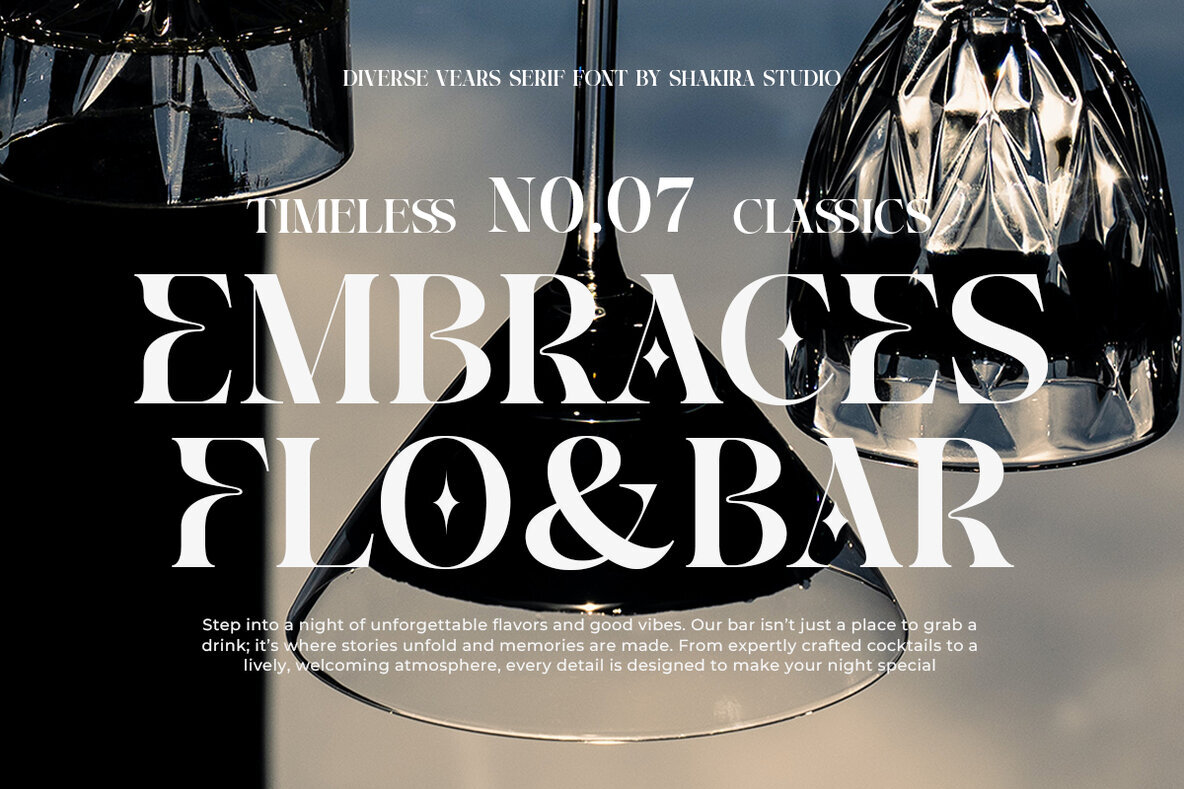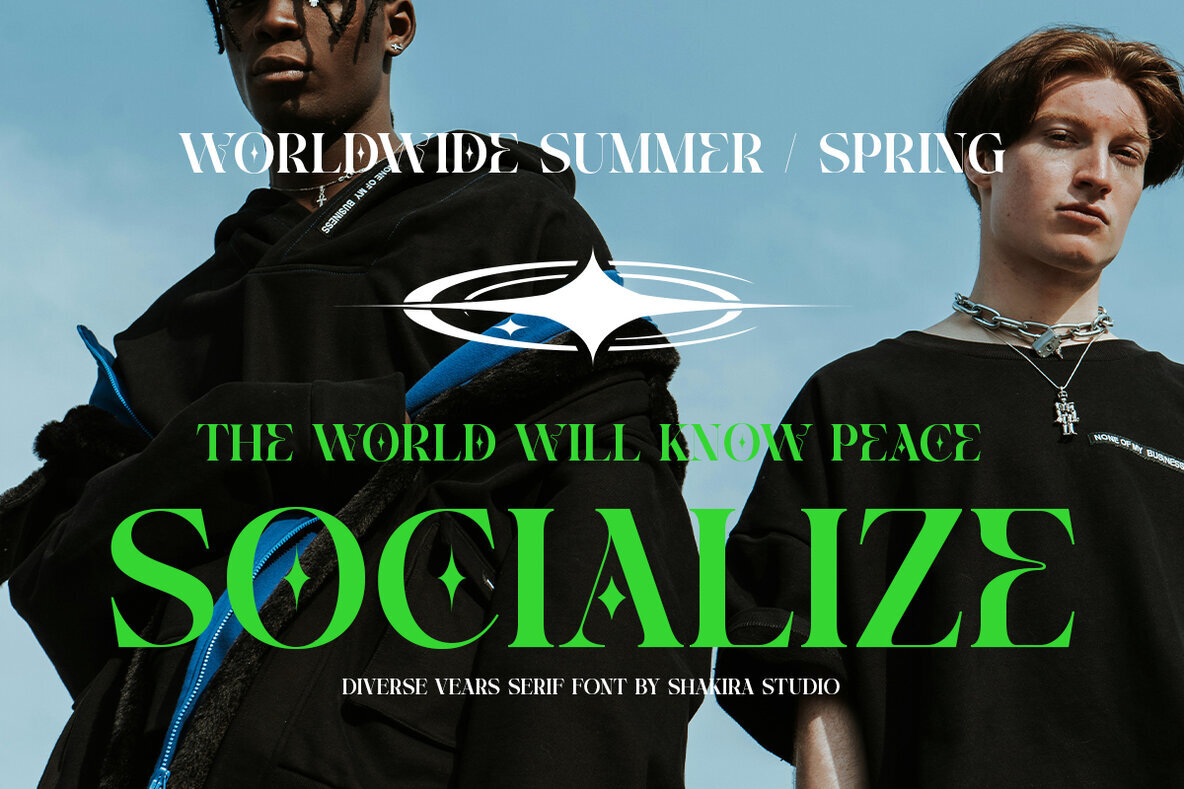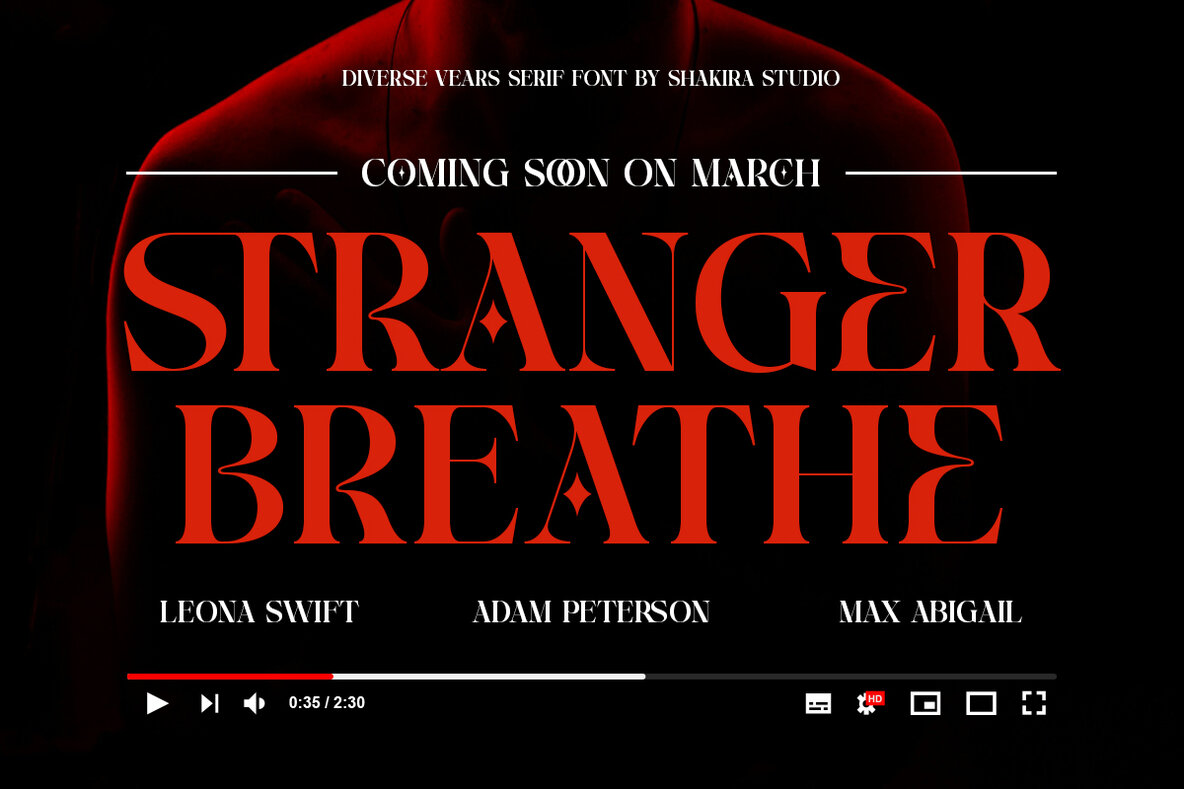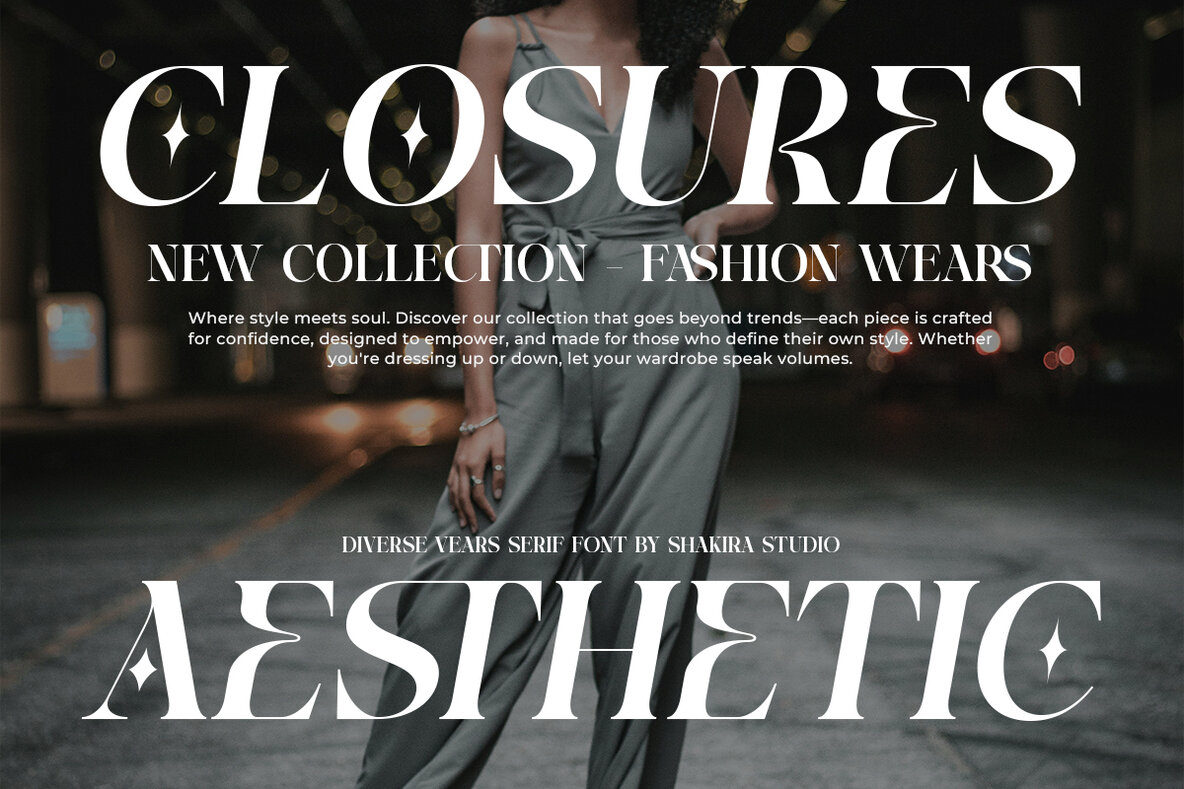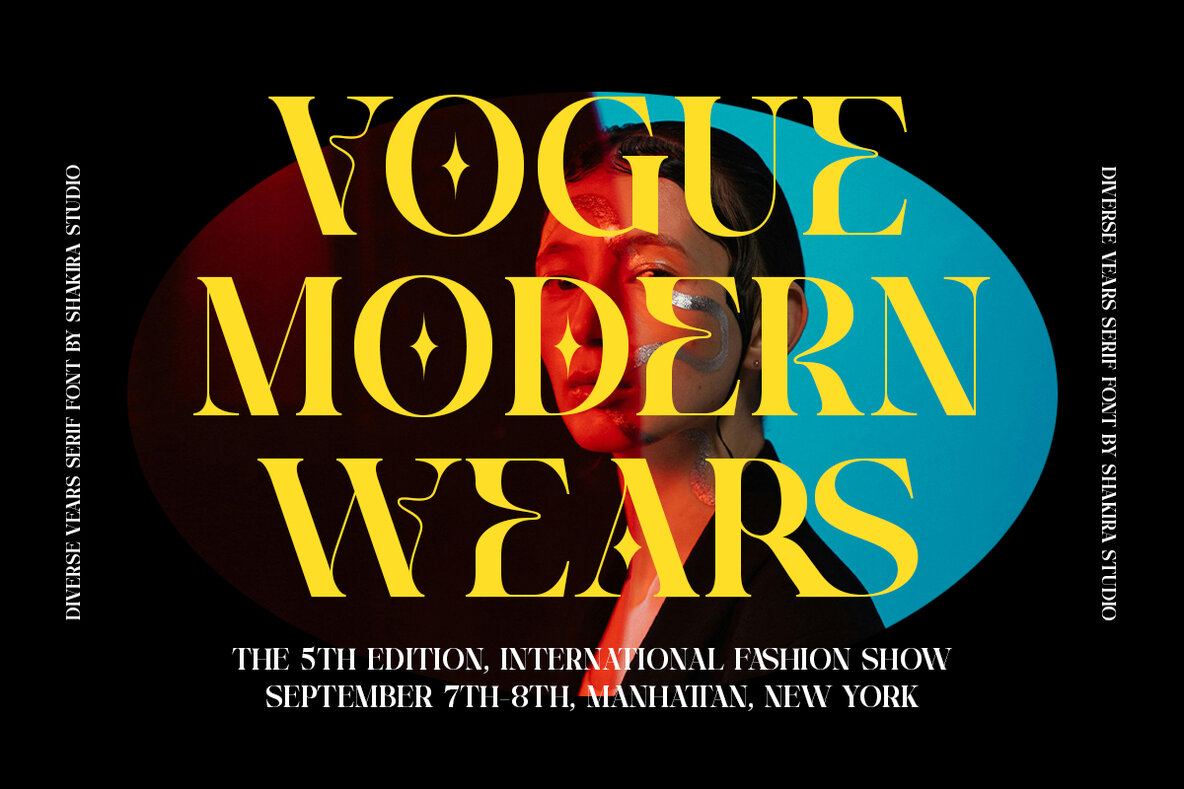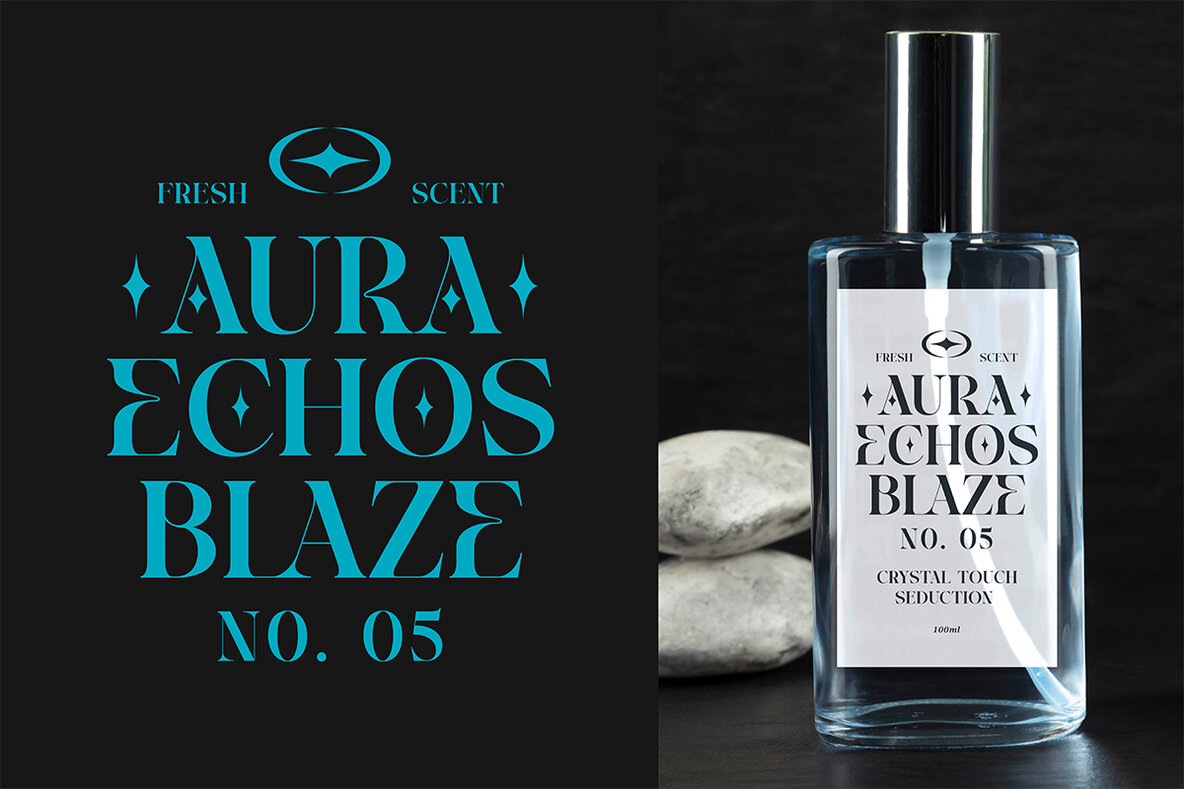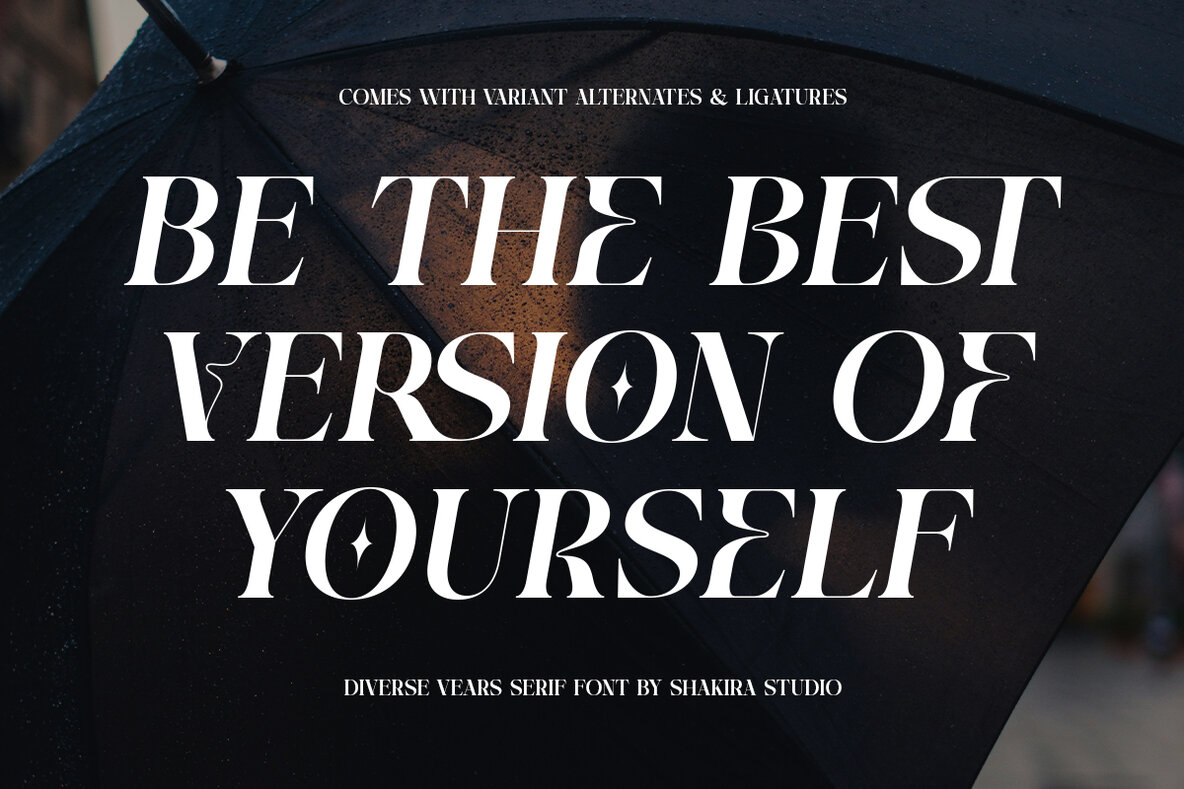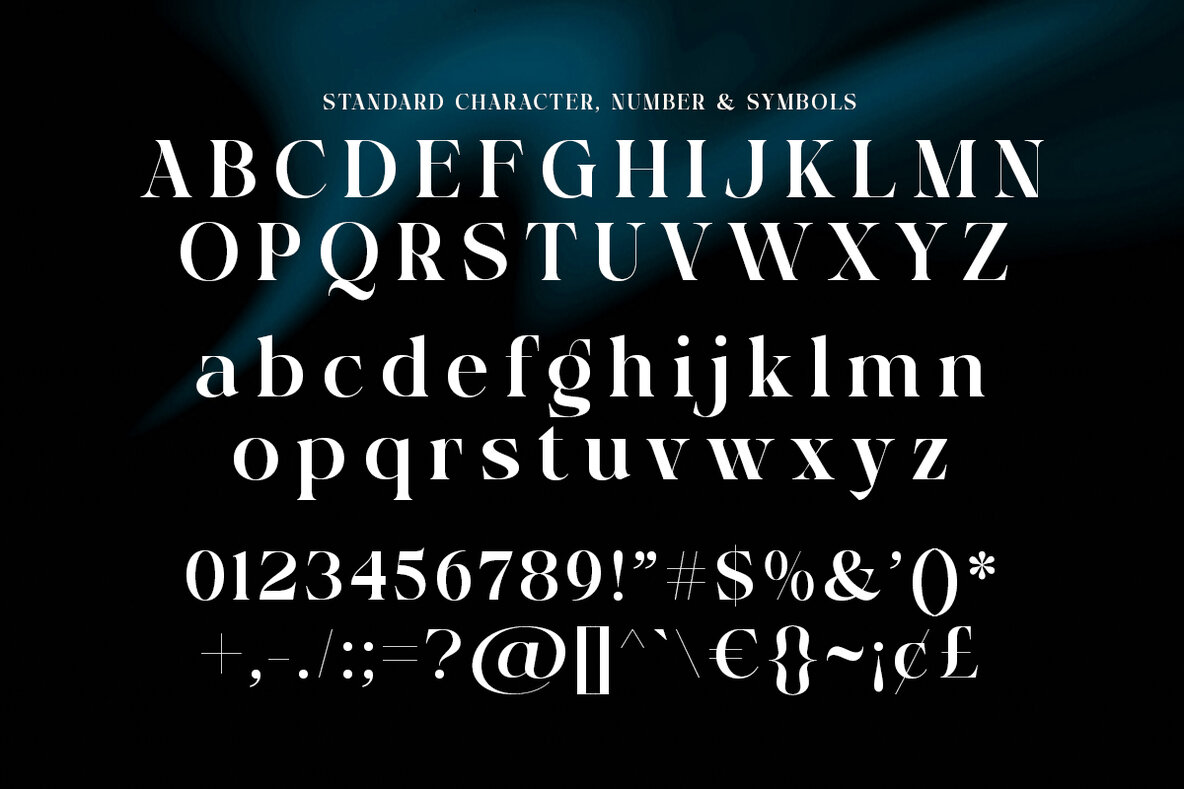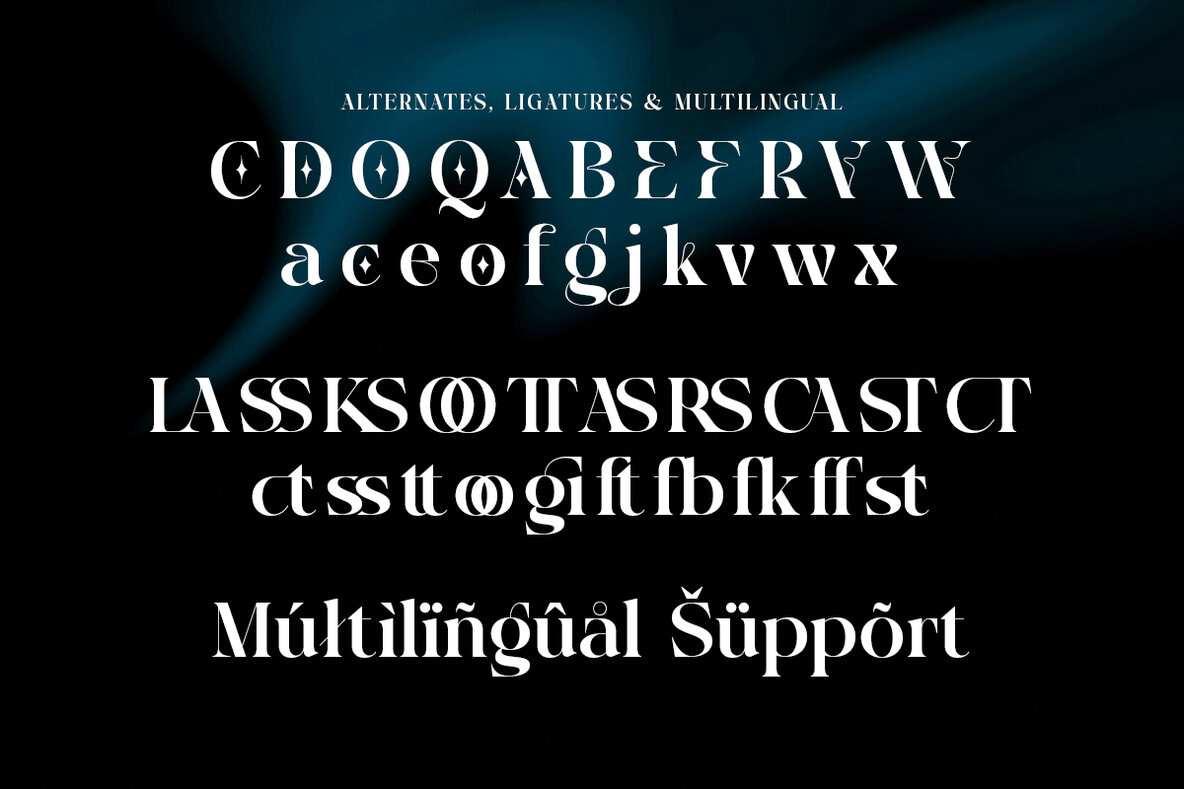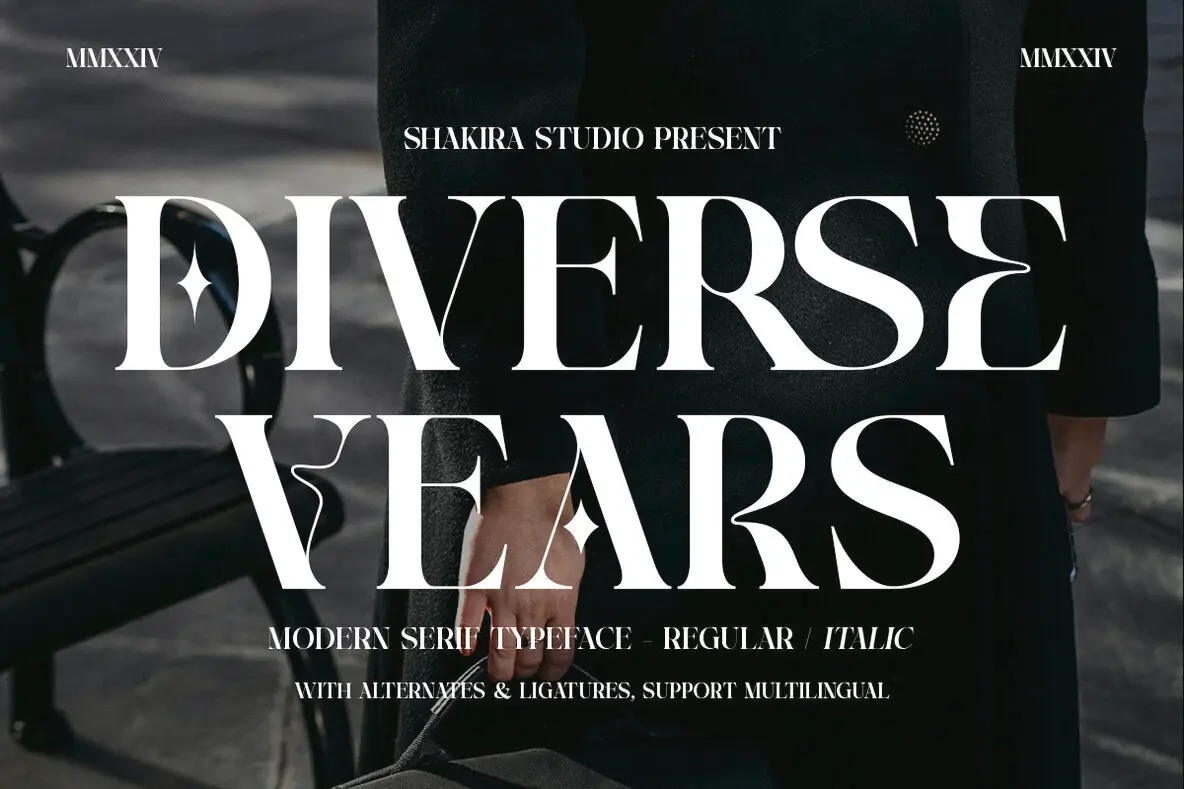
Diverse Vears Font
Diverse Vears is a modern serif typeface that exudes luxury and elegance. Available in regular and italic styles, this font is designed to bring a sophisticated touch to any project. With stylish alternates and ligatures, Diverse Vears is perfect for a wide range of design applications, including branding, editorial layouts, and logos.
This versatile typeface includes OpenType features such as ligatures and alternates, making it fully accessible in Adobe Illustrator, Photoshop, InDesign, and even Microsoft Word. The typeface is PUA encoded, allowing seamless access to its characters without the need for additional design software. Additionally, Diverse Vears supports a wide range of multilingual characters, including Afrikaans, Albanian, Catalan, Croatian, and many more, making it a timeless choice for global design projects.